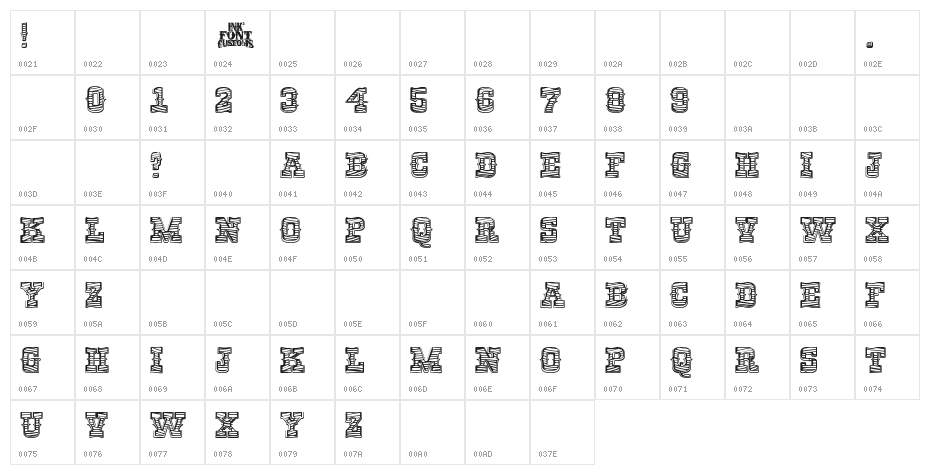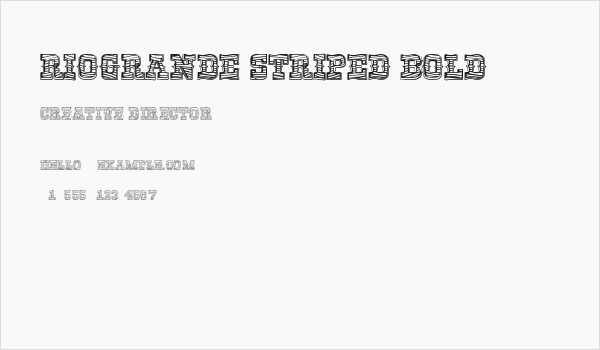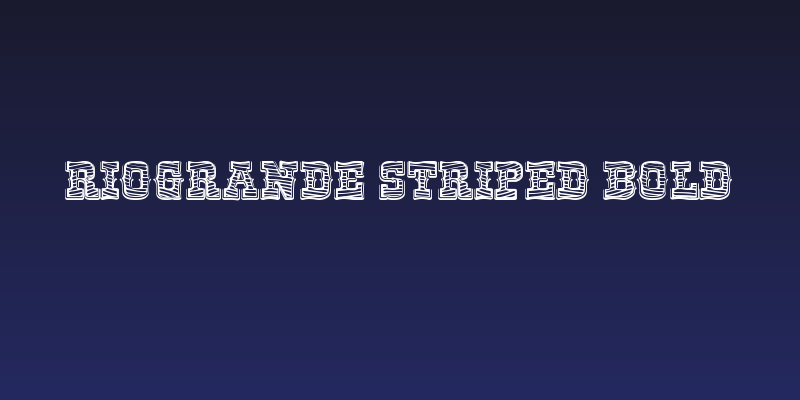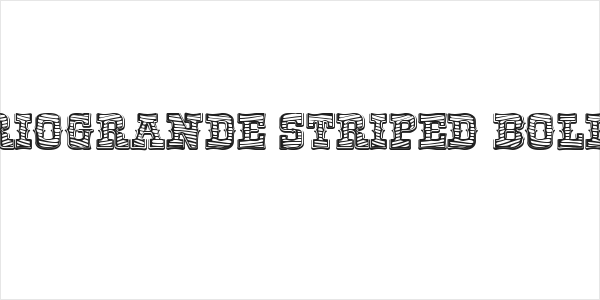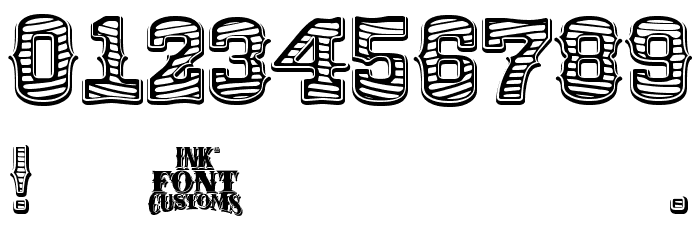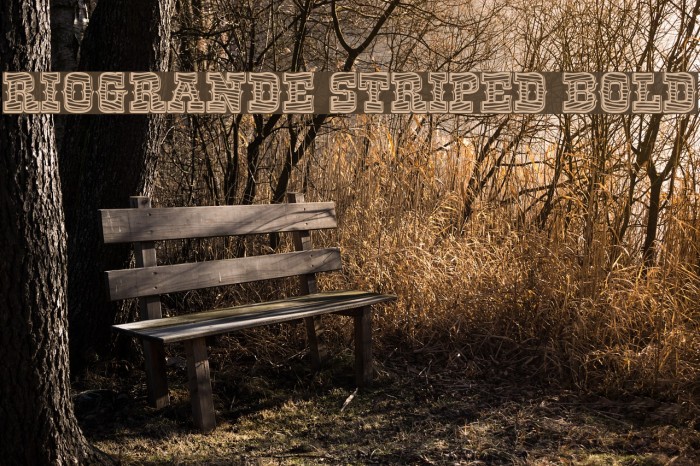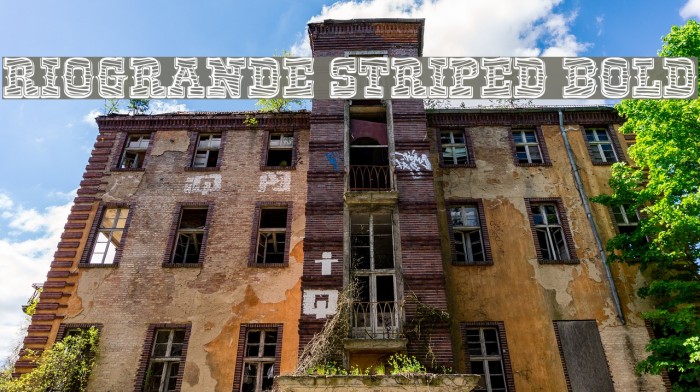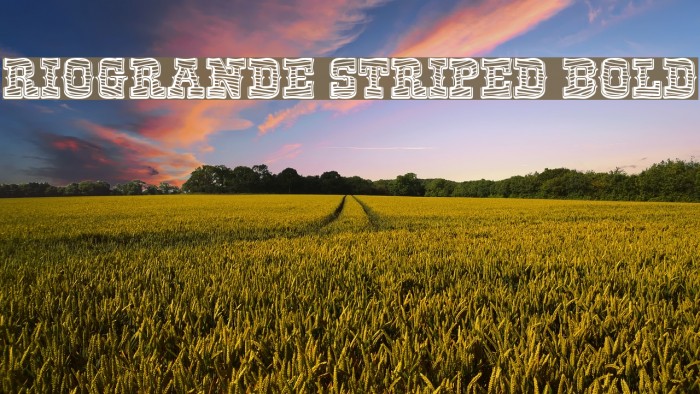
RioGrande Striped Bold Font
| Projets proposés | Ideal for posters, logos, signage, and any design project that requires a bold, vintage aesthetic. |